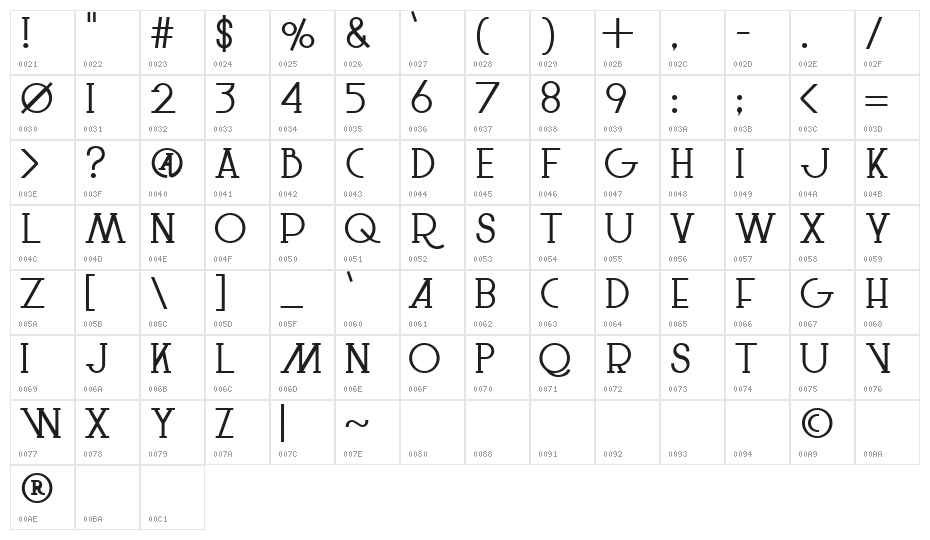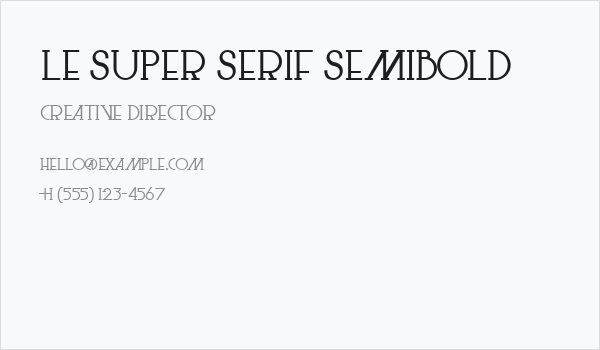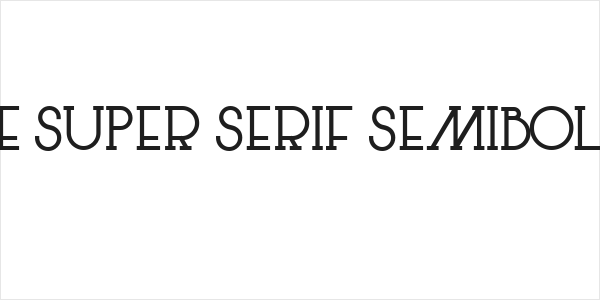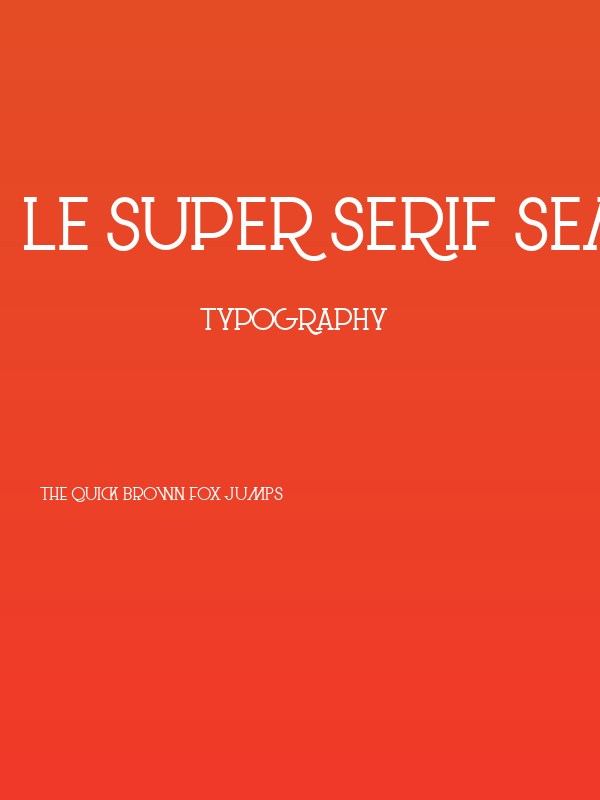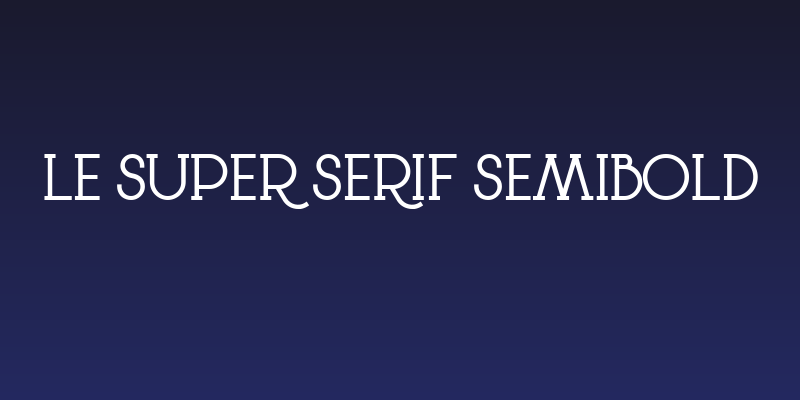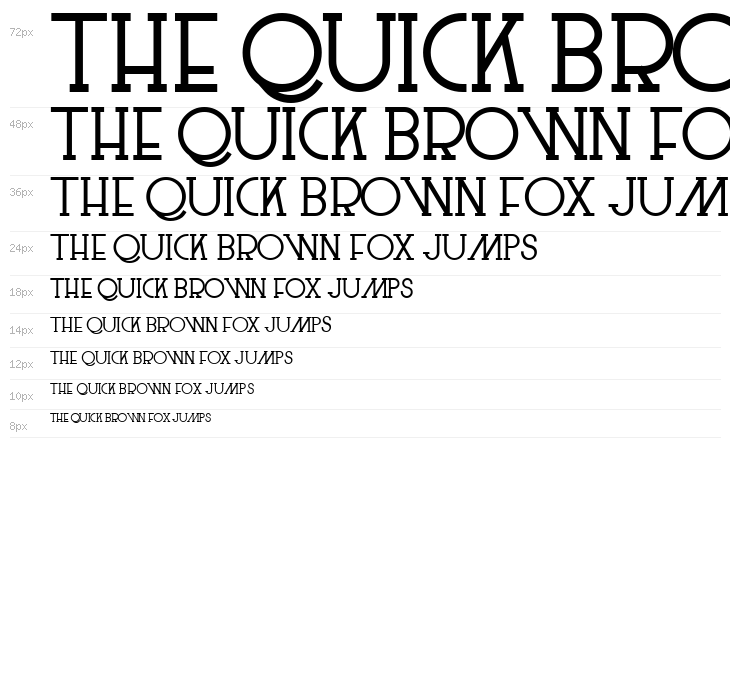
Le Super Serif SemiBold Font
Le Super Serif SemiBold Description
This font features a bold and elegant serif style, characterized by its strong vertical lines and subtle curves. The serifs are pronounced, providing a classic and sophisticated appearance. The uppercase letters are tall and commanding, while the lowercase letters maintain a balanced and readable form. The numerals are distinct and clear, making them suitable for various applications. Special characters are well-integrated, maintaining the overall aesthetic of the font. This typeface is versatile, offering a timeless appeal that can enhance both modern and traditional designs.